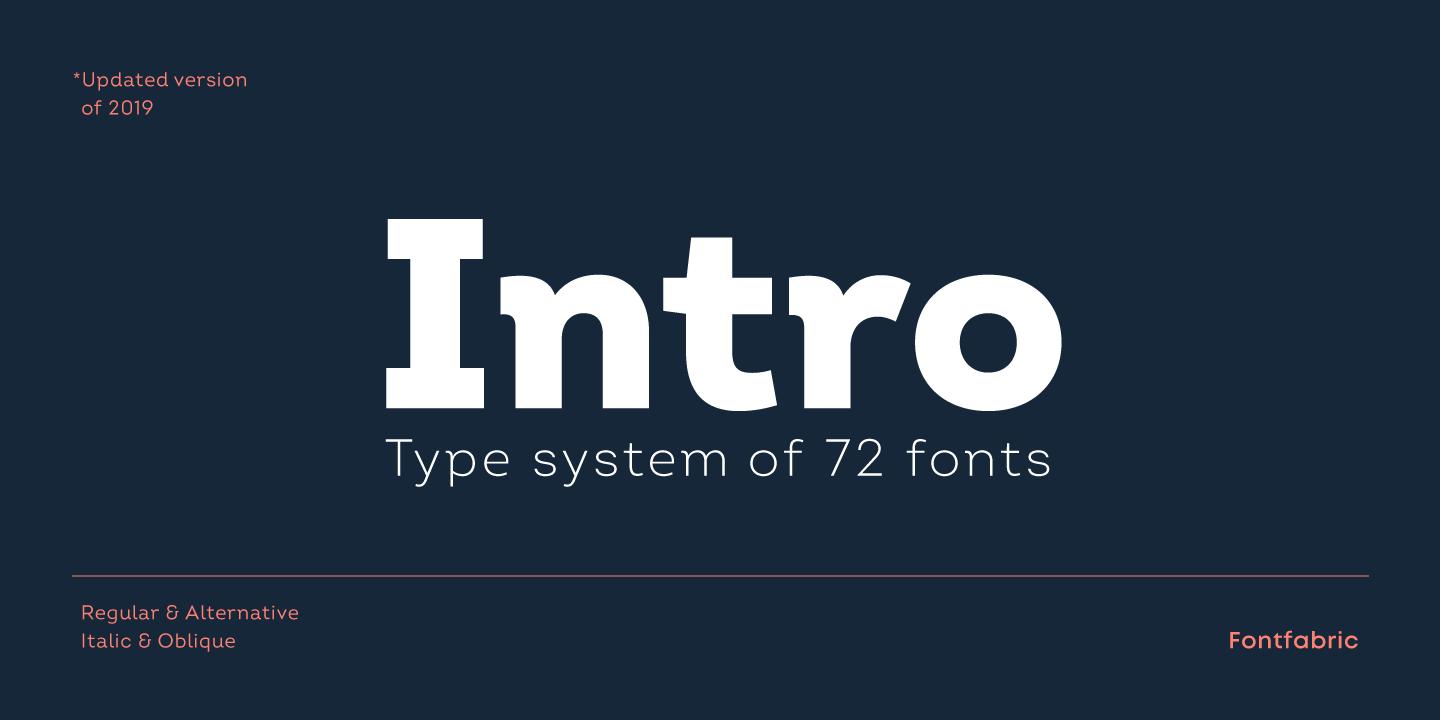
Intro Font Free Download is an incredibly versatile and modern sans-serif typeface, celebrated for its bold presence and geometric precision, making it perfect for designs that demand a strong, contemporary, and impactful aesthetic. Imagine it gracing dynamic magazine headlines, cutting-edge startup branding, powerful website hero sections, or striking advertising campaigns. Its clean lines, robust structure, and often condensed or extended styles also make it an excellent choice for app interfaces, event signage, and any project where visual punch and clear communication are paramount. Whether your goal is to convey efficiency, innovation, or a distinctly modern and authoritative feel, Intro Font offers the stylistic clarity and impact to elevate your creative vision.
What makes Intro Font truly exciting is its engineering for immediate visual prominence without sacrificing readability. It boasts meticulously crafted letterforms that ensure excellent legibility across diverse applications, particularly when used at larger sizes, while its strong character gives it a professional and memorable presence. This isn't just another sans-serif; it's a precisely designed typeface that brings a unique blend of modern aesthetics and robust functionality to any text. Designers appreciate its strong visual appeal and how it can instantly bring a cohesive and polished look to any project, making it a reliable choice for designs that demand both aesthetic quality and powerful communication in contemporary contexts.
The Intro Font family is typically comprehensive, offering an extensive range of weights and widths to ensure maximum versatility across diverse design needs. You can generally expect to find a full spectrum of weights, from Thin and Light to Regular, Medium, SemiBold, Bold, ExtraBold, and Black, often accompanied by their corresponding italic versions. Furthermore, many families include extended variations like Condensed, Narrow, or Extended styles, providing even greater flexibility for specialized applications and creative layouts. This broad array allows for superb typographic hierarchy within your designs, enabling you to create dynamic and engaging visual compositions that maintain a consistent, high-quality aesthetic throughout.